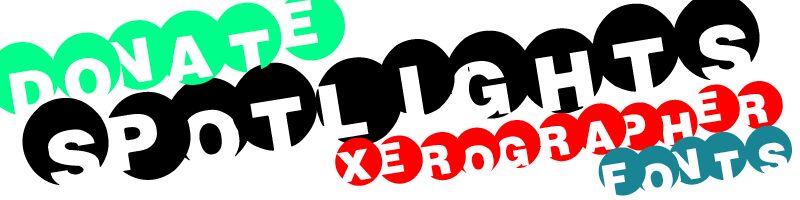
SpotLights by Max Infeld of Xerographer.com is a free decorative display font that cuts stout letterforms into a row of oversized circular shapes. The alternating curves and sharp notches create a lively, crowded silhouette.
Posters are its clearest medium, since the repeated discs turn a headline into a graphic band with an almost stage-lit effect. The same device can give music packaging, event graphics, and merchandise a punchy emblem-like focus. Its theatrical geometry is especially suited to audiences around nightlife, live performance, and pop culture, where oversized graphics are part of the experience.